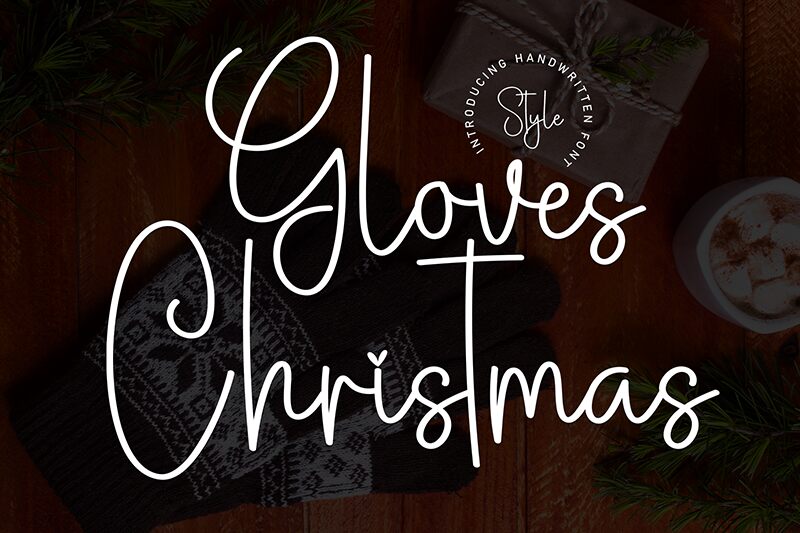
Gloves Christmas
Gloves Christmas font is a free handwritten font designed by Scratchones. It showcases a casual and elegant style, evident from its condensed width and light weight. The uppercase cursive letters also feature elongated strokes that make these glyphs appear more flowing and fluid.
Commercially, it can be used for posters, product packaging designs, t-shirts, magazines, headers, or website layouts. It has become popular among designers for their invitations projects –namely wedding or special occasions– as well as in visual identities of brands and businesses.